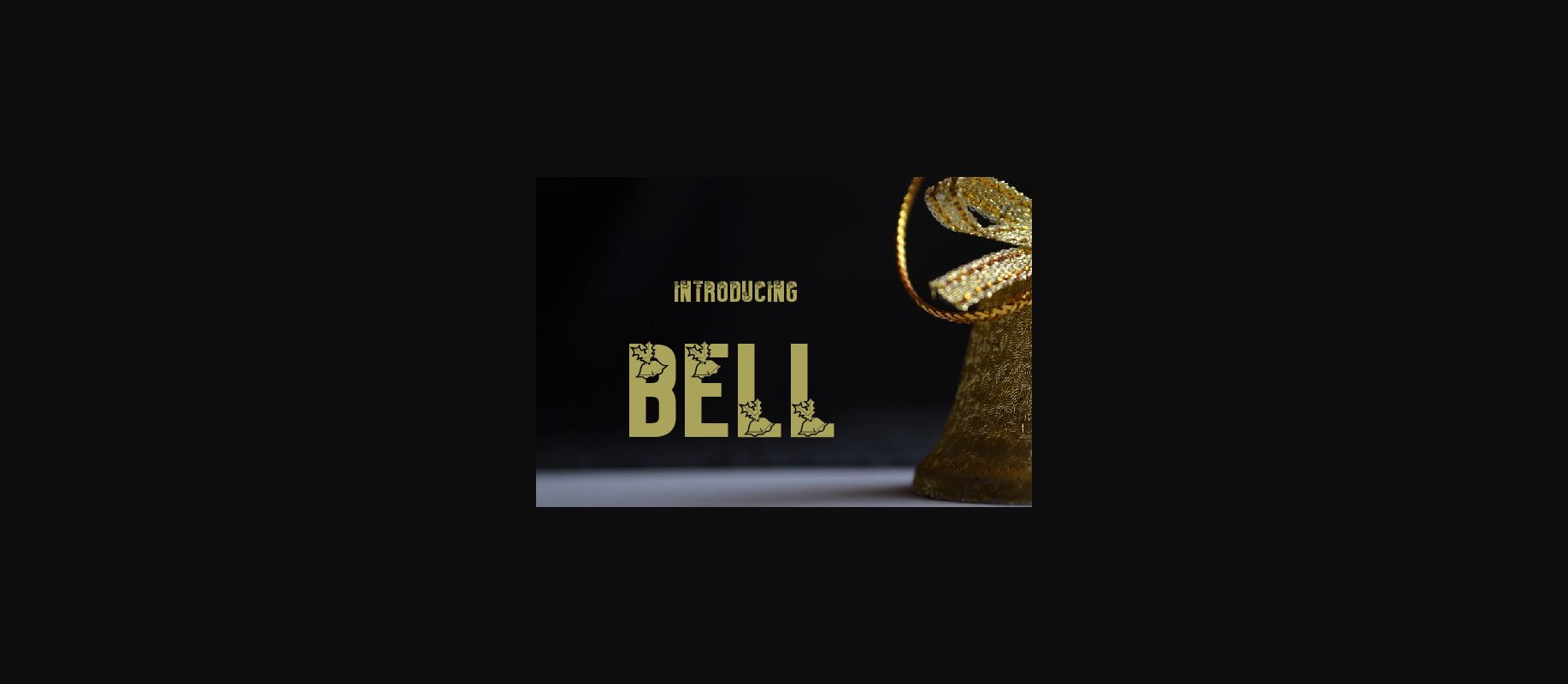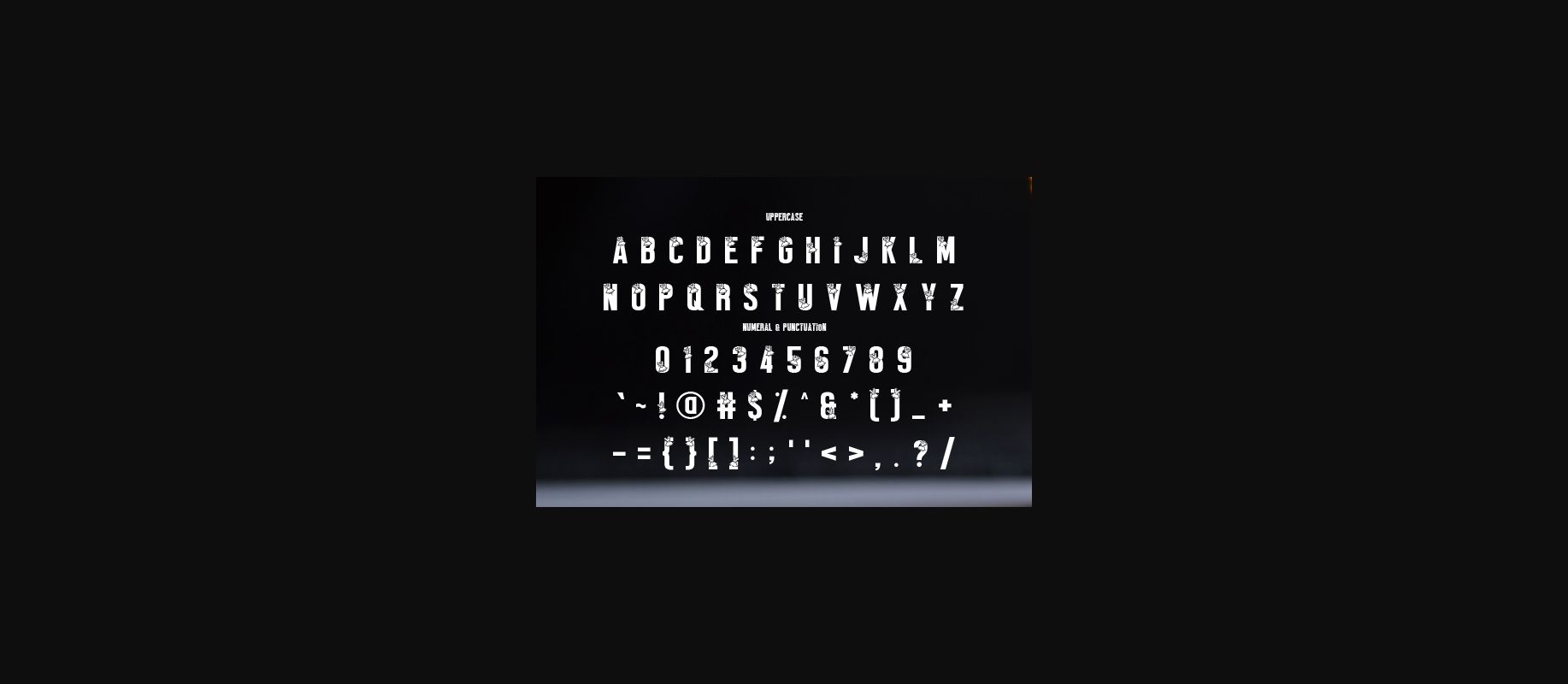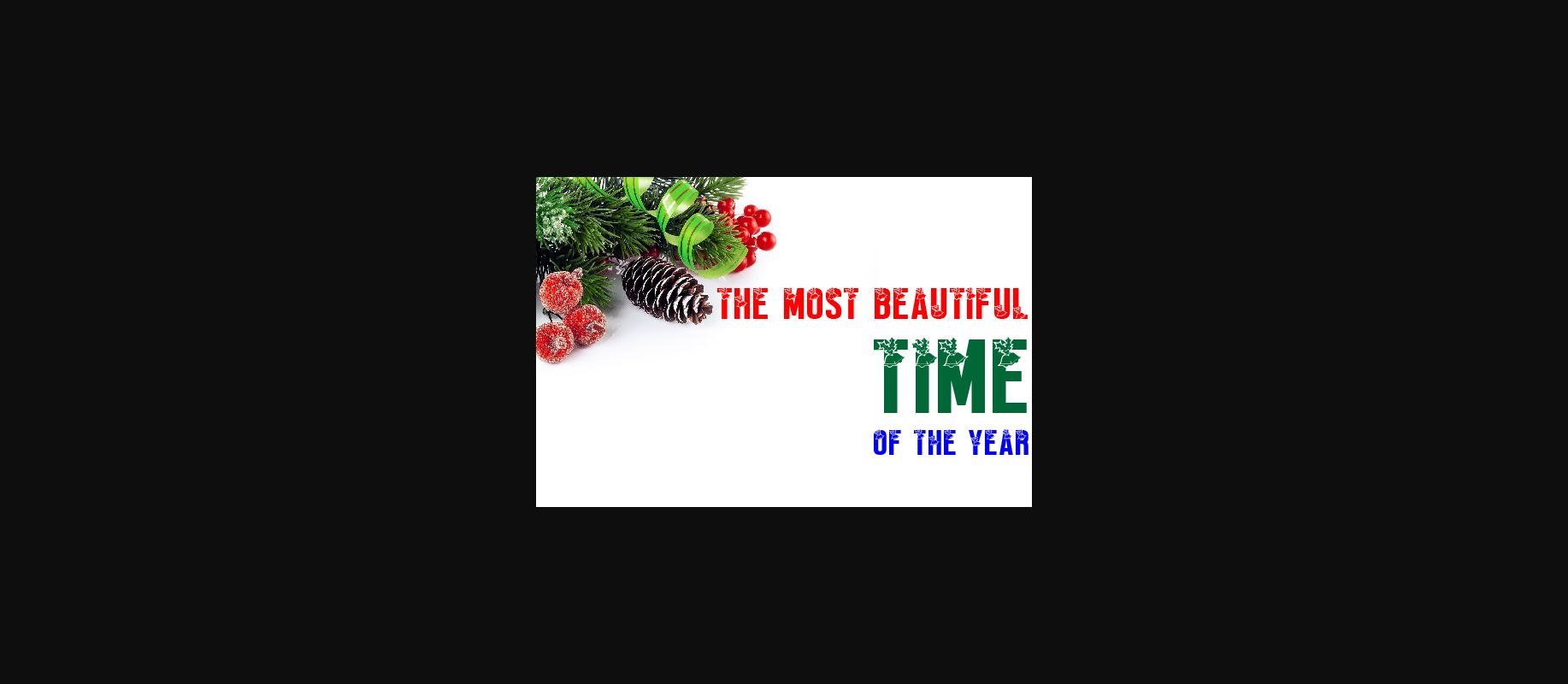
HomeDecorative FontsBell Font Decorative Fonts Bell Font FacebookXPinterestWhatsApp 1 of 3 About Bell Font The Bell is a fun font with christmas bells elements. It’s perfect for cards, prints, and much more! DOWNLOAD NOW People also explored Sebastien Font HU Greentea Font Wedding Signature Font Grindvilles Duo Font Summer Rain Font Samantha Pastel Font Loving Caress Font Blusty Duo Font Lagerto Font 316 0 TagsBellBell Font Previous articleCrop Circles FontNext articleClorofil Font LEAVE A REPLY Cancel reply Comment: Please enter your comment! Name:* Please enter your name here Email:* You have entered an incorrect email address! Please enter your email address here Website: Save my name, email, and website in this browser for the next time I comment. Personal Use Free Cute Messy Personal Use Free Read more about this font Heart Personal Use Free Read more about this font Antaro Personal Use Free Read more about this font Miss Love Personal Use Free Read more about this font BLOG Elegant Wedding Invitation Fonts – Handwritten & Script Fonts Elegant Wedding Invitation Fonts Your wedding day is one of the most important moments of your life, and every detail matters—including your invitation design. Our... Using Fonts in Digital Marketing: Tips to Strengthen Your Brand Identity Best Fonts for YouTube Videos: Make Your Thumbnails Stand Out 5 Fonts That Will Dominate Design Trends in 2026